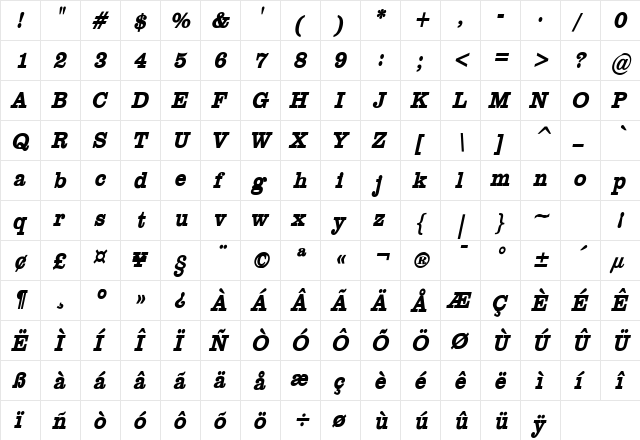
Clare Thin Bold Italic Font Preview
Clare Thin Bold Italic
Design Context for Clare Thin Typeface
Clare Thin is a composed and adaptable typeface that performs quietly and consistently across a wide range of design contexts. The dynamic lean of this cut emphasises speed and emphasis in any layout. Its bold stroke weight gives it real presence on the page.
Pro Tip: Use Clare Thin for emphasis, pull quotes, and subheadings where its slanted energy can add rhythm to the layout.